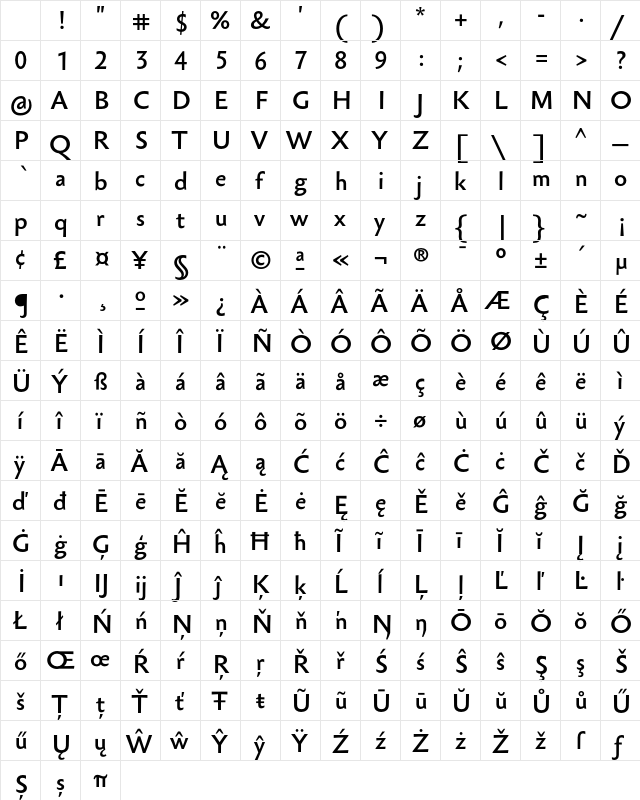
Complete Sebastian Light UCF Light Bold glyph index. Displaying only characters natively supported by Sebastian Light UCF Light Bold font.
Sebastian Light UCF is a composed and adaptable typeface that performs quietly and consistently across a wide range of design contexts. Its bold stroke weight gives it real presence on the page.